I think my favorite style of font right now are the signatures. Each signature is unique, and so is each signature font!
This bold display font is such a breath of fresh air after staring at girly scripts everywhere you go! Have fun experimenting with all the awesome 3D effects you can achieve with this font!
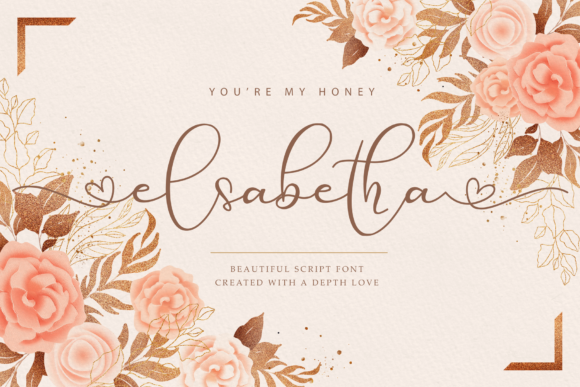
I love this swirly girly calligraphy! Looking for even more of my favorite fonts with extras? Check out my latest little list!
This is actually one of my favorite fonts! I love using it for fun printables, the boldness of the script perfect for playful quotes.
Is it just me, or does this one make you think of Middle Earth? Do you see it? I love the Lord of the Rings, both books and movies, so this font really brings up some nostalgia!
This is an awesomely huge list of free fonts that are perfect for all things wedding. Get ready to be overwhelmed, y’all!
Eight beautiful calligraphy fonts that are free for both personal and commercial use! Each of these fonts has gorgeous swashes to give your project that perfect something special.
These six free fonts are perfect for your next wedding announcement, whether for yourself of for a client! All of these beautiful fonts are not only free, but they are free for commercial use, too!